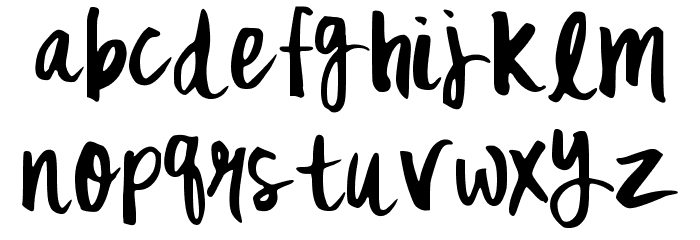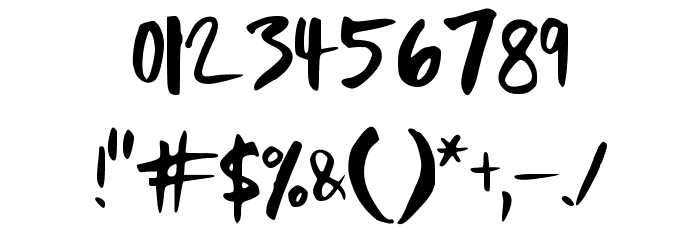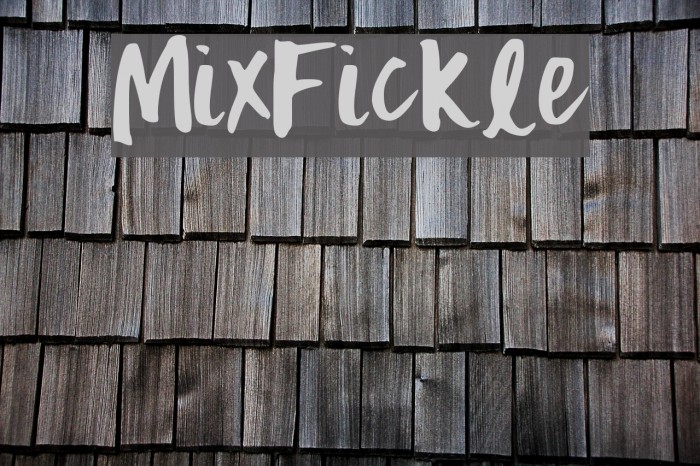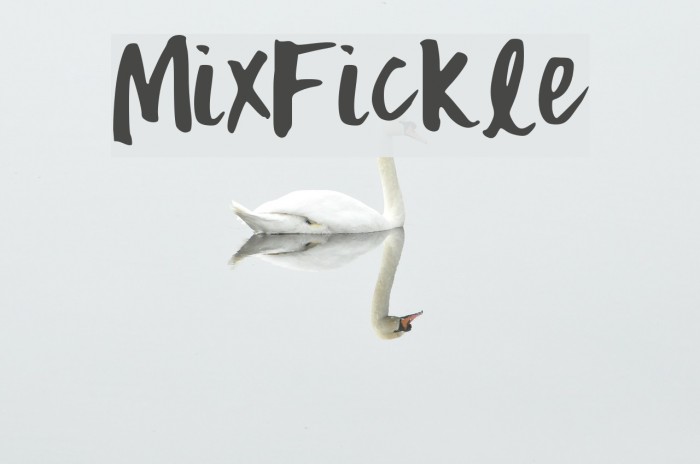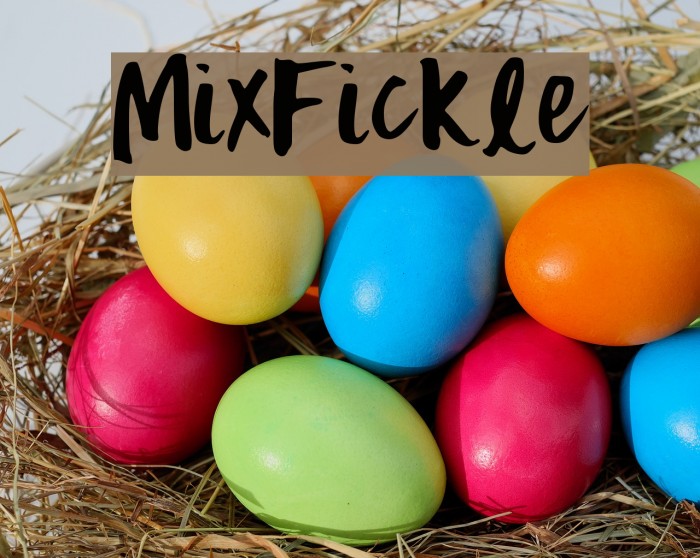
MixFickle Font
This font exudes a playful and energetic vibe, characterized by its bold and dynamic strokes. The letters have a hand-drawn quality, with varying thickness that adds a sense of movement and spontaneity. The uppercase letters are bold and assertive, while the lowercase letters maintain a consistent flow, enhancing readability. The numbers and special characters are crafted with the same lively spirit, making them stand out. This font is perfect for projects that require a touch of creativity and informality, such as children's books, playful branding, or artistic posters. Its unique style makes it a great choice for designs that aim to capture attention and convey a sense of fun.
A playful, hand-drawn font with bold, dynamic strokes and a lively character.
- Proposed Projects: Ideal for children's books, playful branding, artistic posters, and creative designs.